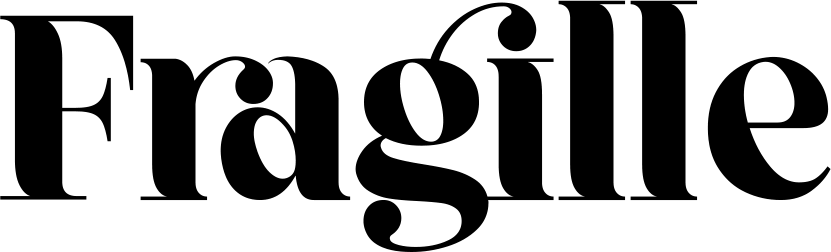
Fragille Font
Fragille is a font with an elegant personality that could pull off high-fashion and modern designs. It has letters with a distinct contrast between the strokes that come in a smooth transition, with hairline serifs, and enlarged bowls.